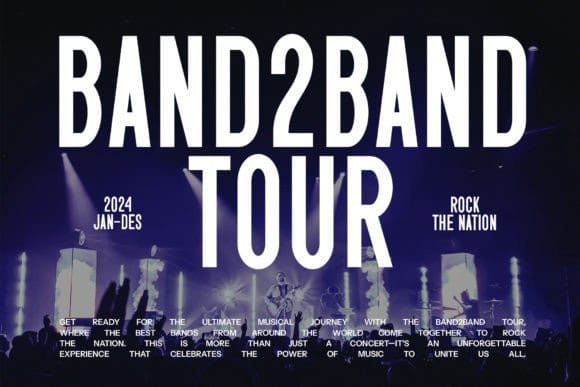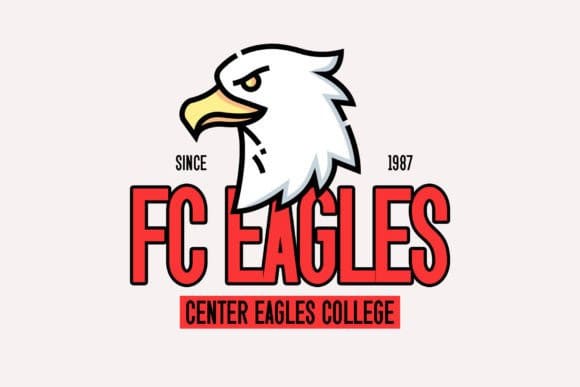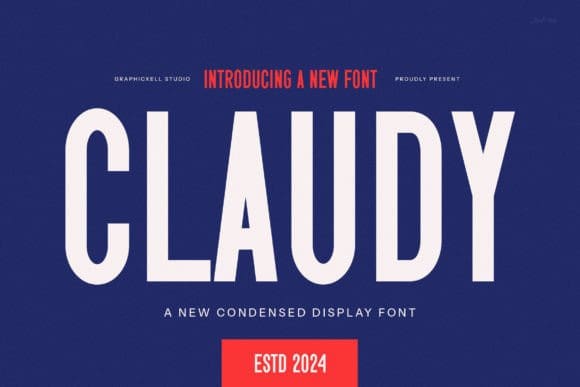
Claudy Font
Claudy Font is a condensed sans serif font. Great for designing engaging social media posts, stories, and ads. The colorful fonts are perfect for catching the eye and encouraging interaction.